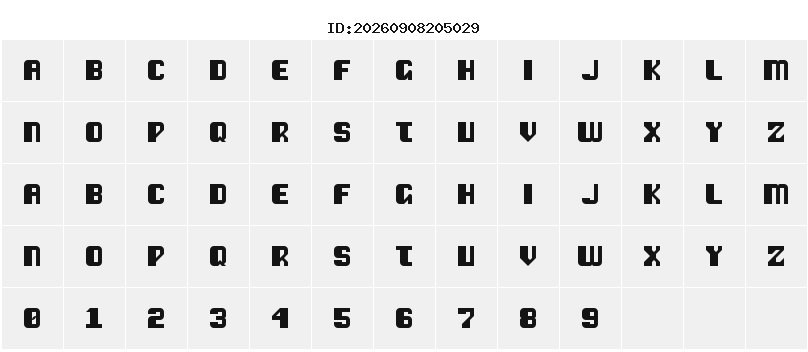
• Font Name: Vipond Chubby
• Full Font Name: Vipond Chubby Regular
• Designer: James Vipond
About Vipond Chubby.ttf
Vipond Chubby.ttf is a modern, elegant sans-serif font designed for ultimate readability and visual harmony. Perfect for branding, headlines, web design, and print materials.